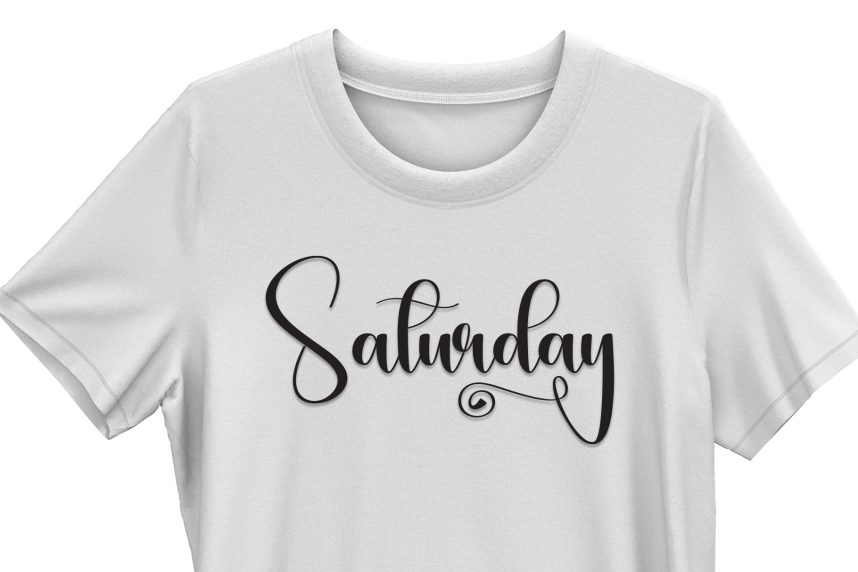
Fishing Calligraphy Script Font
Fishing Calligraphy Script Font is a sweet and friendly handwritten display font. Cute and fun, this font is ideal for writing wedding invitations, cards, or any other design that might need a playful touch!